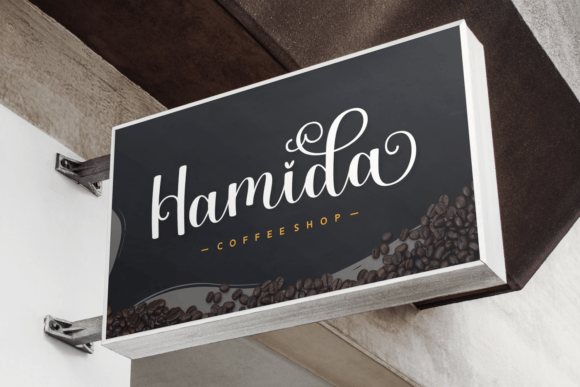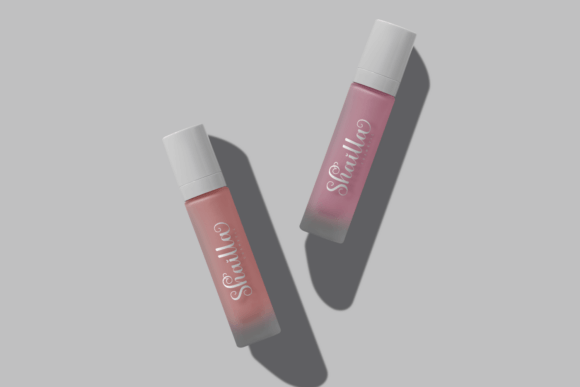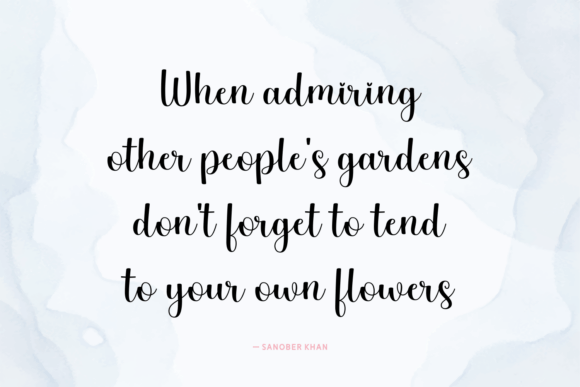
The Enchanting Anylia Font: A Designer’s Dream Come True
I still remember the time I was working on a wedding invitation project, and I just couldn’t find the perfect font to capture the elegance and romance of the occasion. The client wanted something that exuded sophistication and whimsy, but I was coming up blank. That’s when I stumbled upon the stunning Anylia font, and it instantly became my go-to choice. In this article, I’ll share my love for this lovely script font, its features, and how to make the most of it in your designs.
An Honest Review of Anylia Font
What I Love About Anylia ✨
• 💕 Elegant swirls and romantic charm that add a touch of sophistication to any design
• ✅ Smooth curves and delicate details that make it perfect for wedding invitations, greeting cards, and feminine branding projects
• 🎉 Versatility and beauty that make it ideal for creating standout visuals in digital designs, stationery, or packaging
• 👍 Playful and graceful style that suits a wide range of creative projects
While Anylia is an amazing font, there are a few things to keep in mind:
• ⚠️ Some users have reported issues with kerning, so it’s essential to adjust the spacing between letters for optimal results
• 🤔 The font may not be suitable for very small text sizes, as the delicate details may get lost
3. Experiment with OpenType features, such as stylistic alternates and glyphs, to add more flair to your design
The Story Behind Anylia Font
While I couldn’t find any information on the designer’s personal story, it’s clear that Anylia was crafted with love and attention to detail. The font’s elegant swirls and romantic charm suggest a designer who was inspired by the beauty of handwritten script.
What is the best use for Anylia font? Anylia is perfect for wedding invitations, greeting cards, feminine branding projects, and any design that requires a touch of elegance and romance.
Is Anylia font suitable for digital designs? Yes, Anylia is versatile and can be used in digital designs, such as social media graphics, blog posts, and website headers.
Is Anylia font easy to read? Anylia is a script font, and while it’s elegant and beautiful, it may not be suitable for very small text sizes or body text. It’s best used for headlines, titles, or short paragraphs.